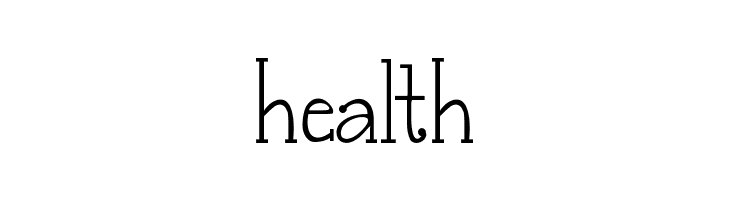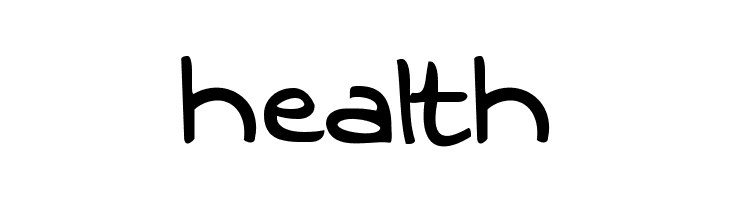
A whimsical collection of hand-drawn floral doodles in black and white.
An elegant script font with intricate swirls and decorative flourishes.
A bold, playful font with rounded edges and a friendly appearance.
A casual, handwritten font with a friendly and approachable style.
A playful and whimsical font with decorative elements and dynamic strokes.
A hand-drawn, sketch-like font with uneven weights and rough edges.
A modern, italic sans-serif font with medium weight and balanced proportions.
A playful serif font with tall, narrow characters and whimsical details.